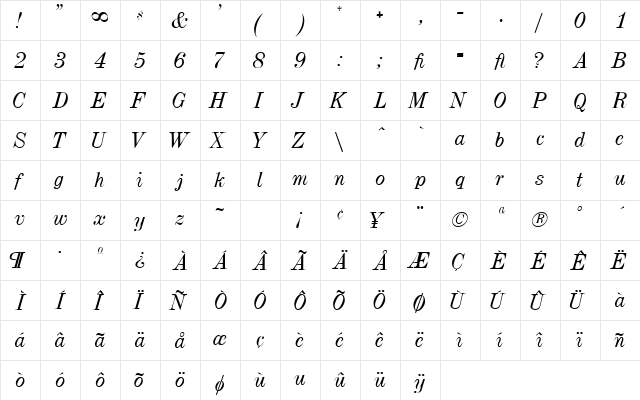
PolarSSK Italic
Design Context for PolarSSK Typeface
PolarSSK offers clean, dependable letterforms without strong stylistic allegiance, making it a practical choice for designers who need flexibility. The dynamic lean of this cut emphasises speed and emphasis in any layout.
Pro Tip: Use PolarSSK for emphasis, pull quotes, and subheadings where its slanted energy can add rhythm to the layout.